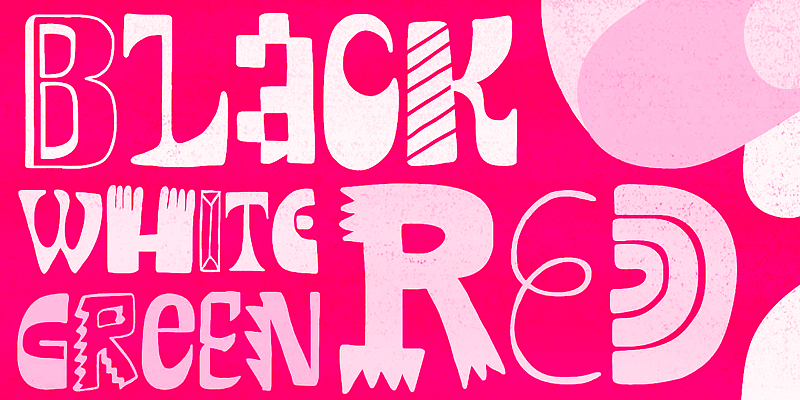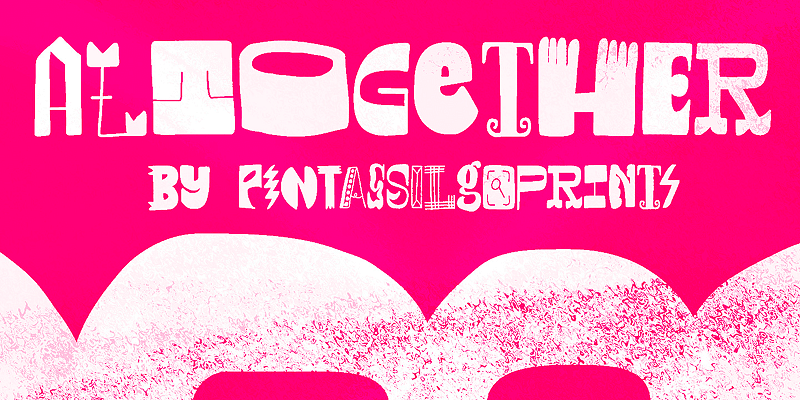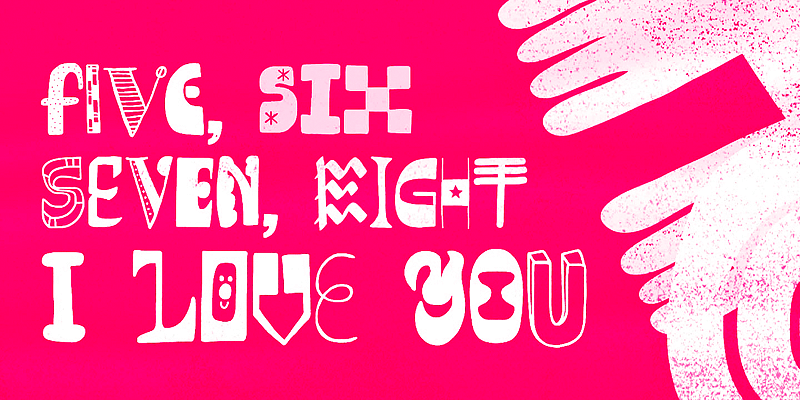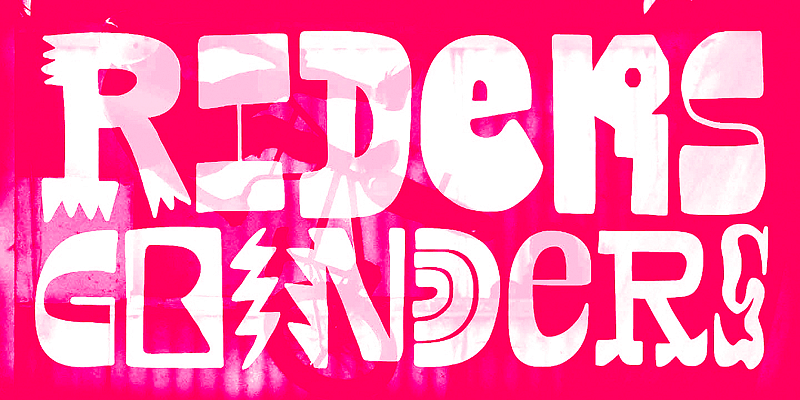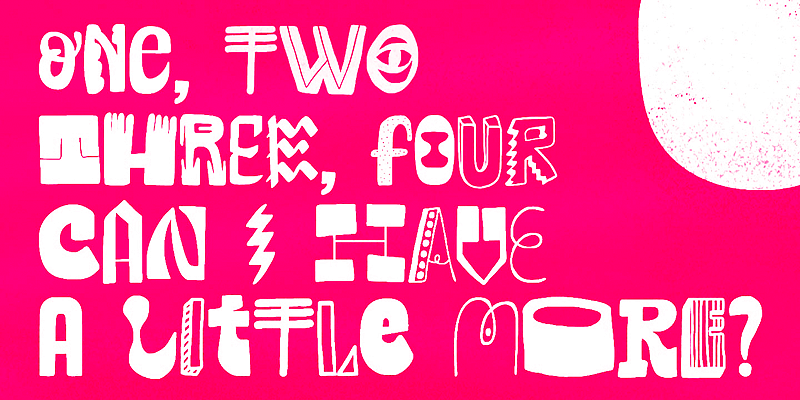
Altogether is oodles of hand-drawn doodles! A display family built with not one, two, or even three, but a kaleidoscope of eight originally creative flavors for each letter. Sometimes square, sometimes round, occasionally loopy, and even striped! Definitely a bit eccentric! Ideal for short bursts of text that need to grab your eye!